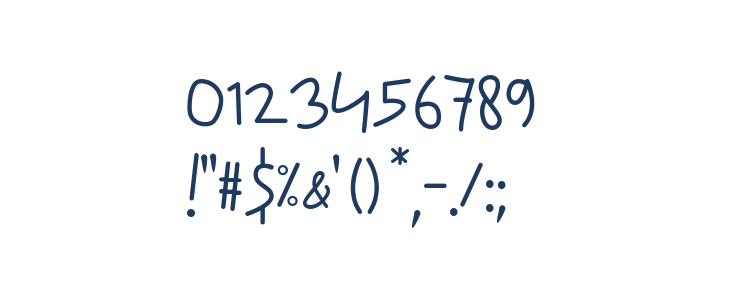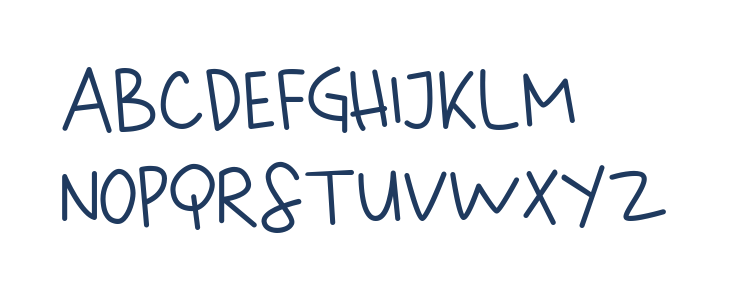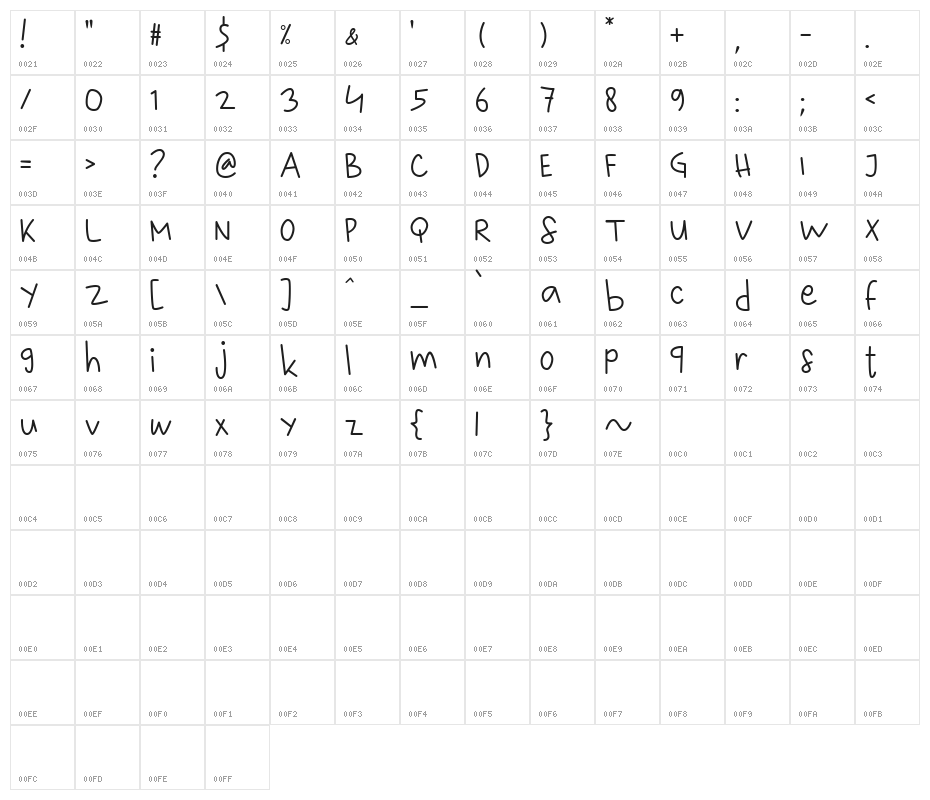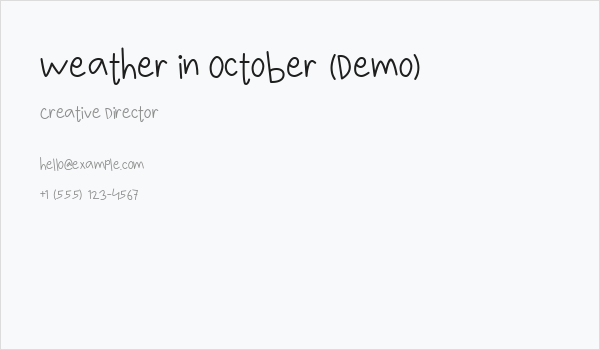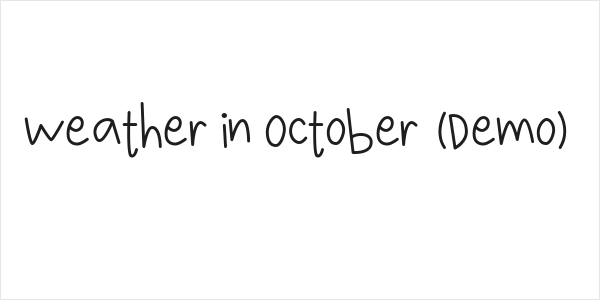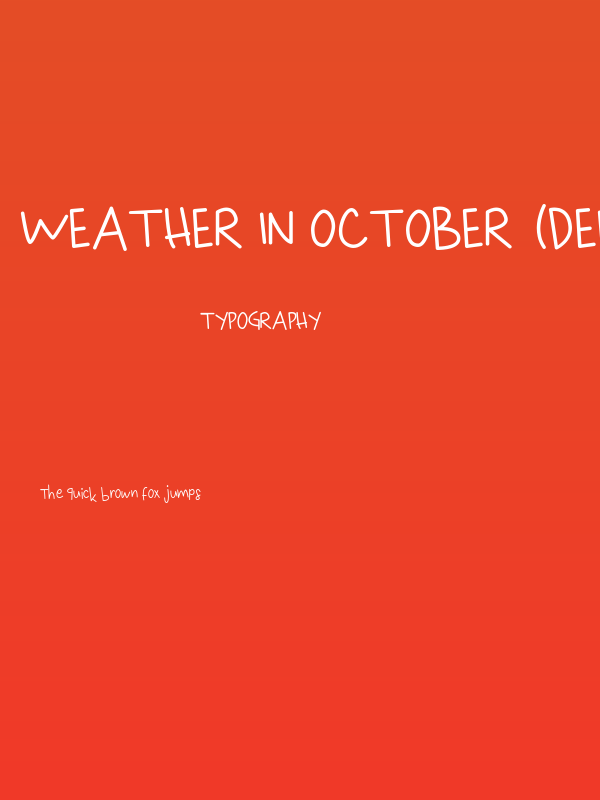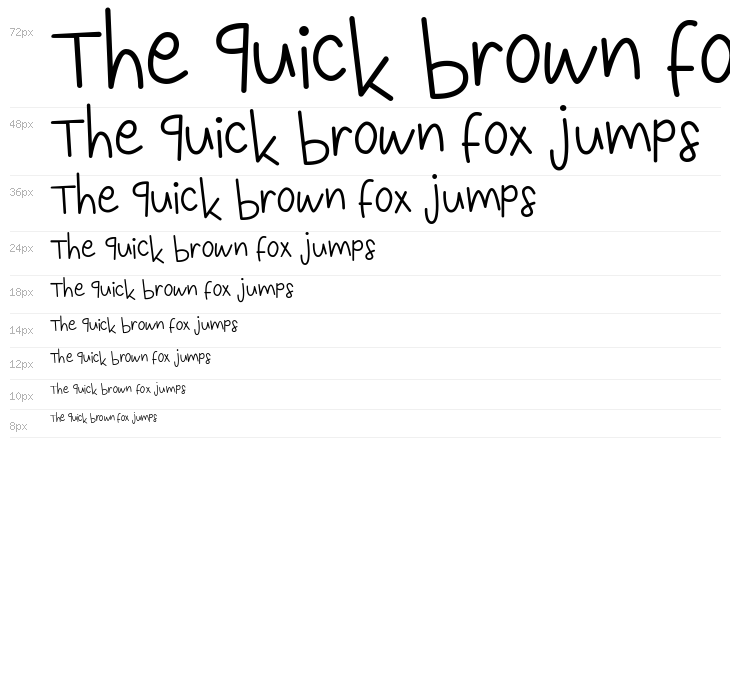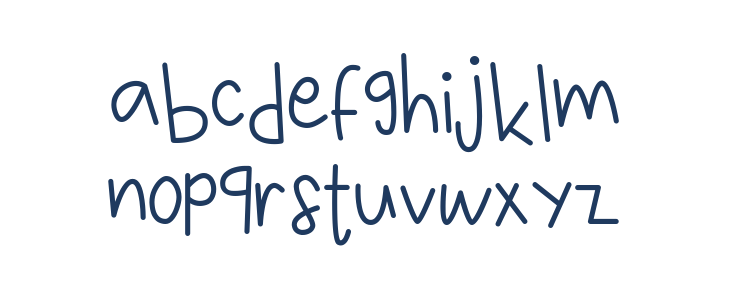
Weather in October (Demo) Font
Weather in October (Demo) Description
A playful, informal handwritten typeface with irregular, slightly uneven strokes and rounded terminals, giving it a casual and friendly appearance. The characters are tall with generous spacing and a relaxed, approachable feel.
| Overall Style | Playful, Informal, Friendly |
| Use Case | Headlines, Short text, Quotes, Invitations |
| Proposed Projects | ChildrenΓ’β¬β’s books, greeting cards, informal posters, social media graphics, creative branding. |